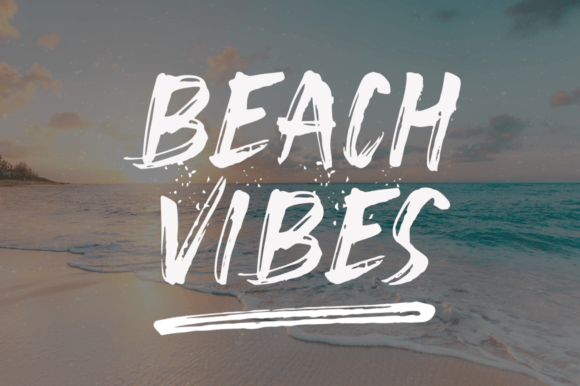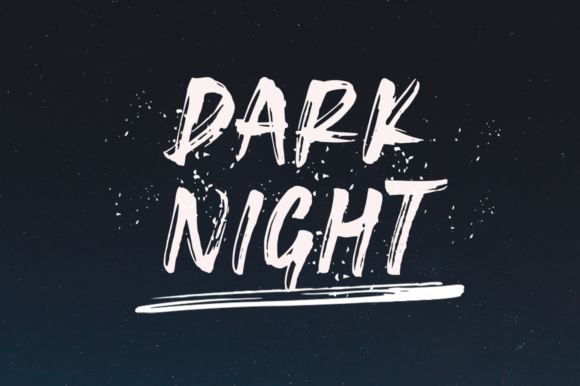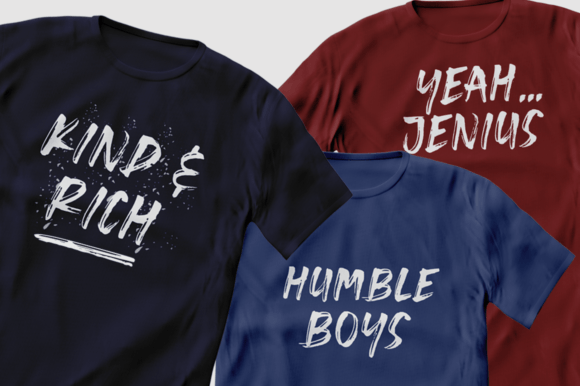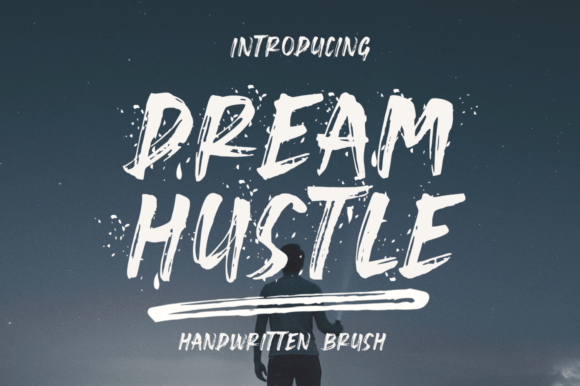
Introduction to Dream Hustle Font
Dream Hustle is a hand brush font resulting from sketches with a brushed texture.
This display font is suitable for design choices that are full of creativity and originality Even dominant with design branding.
Dream Hustle Font offers exceptional quality and versatility, making it a valuable addition to your design toolkit. Whether you’re creating for personal projects or commercial use, Dream Hustle Font delivers professional results.